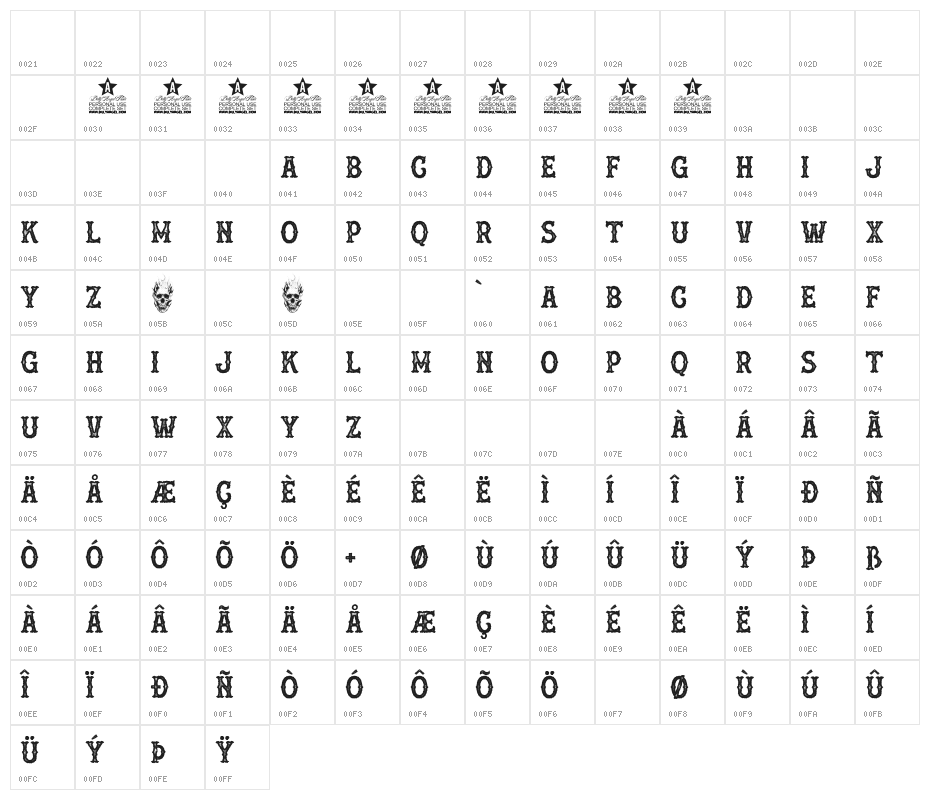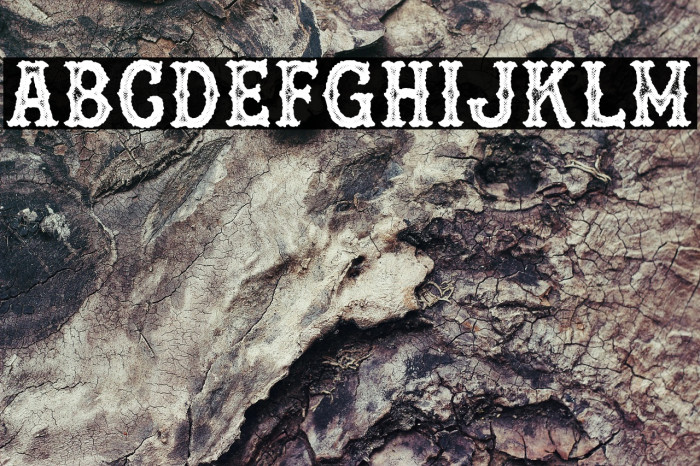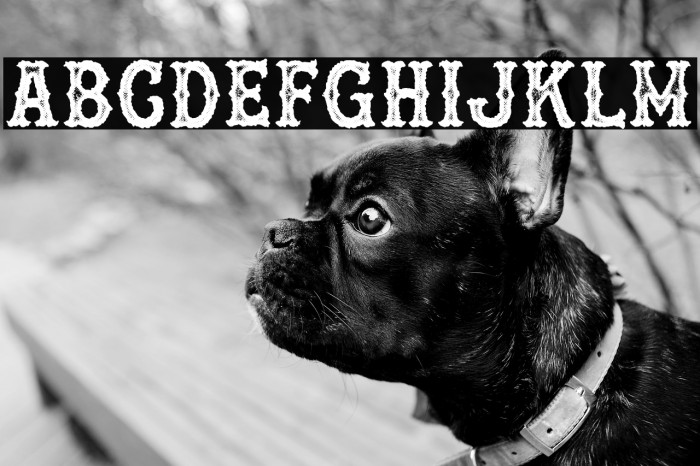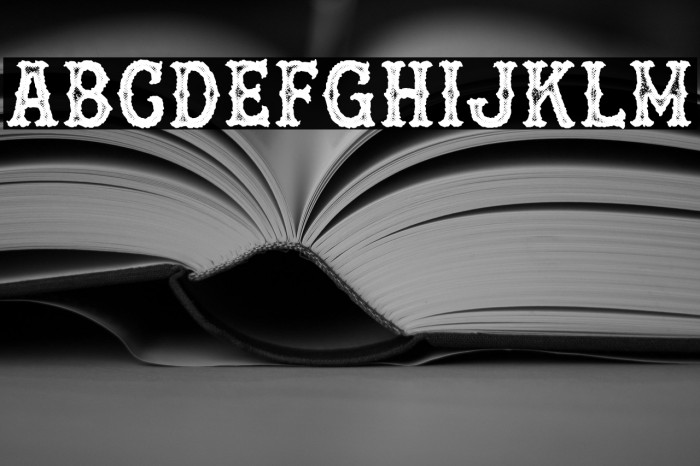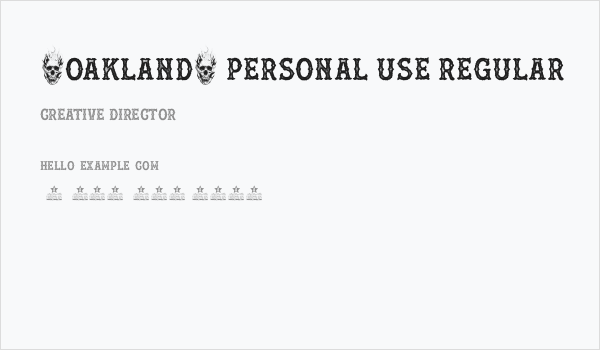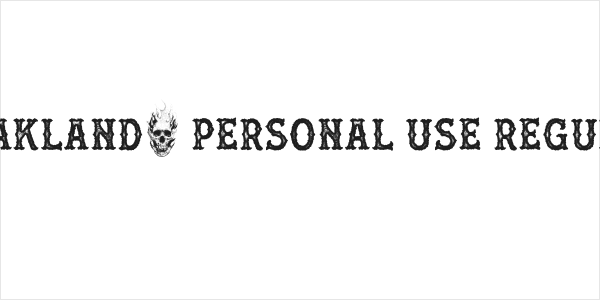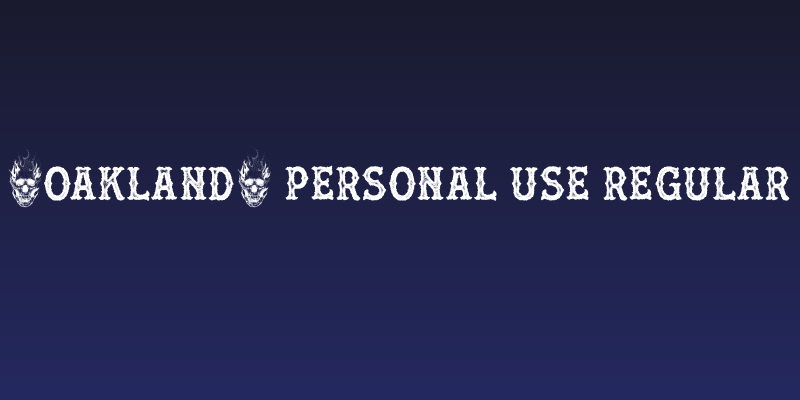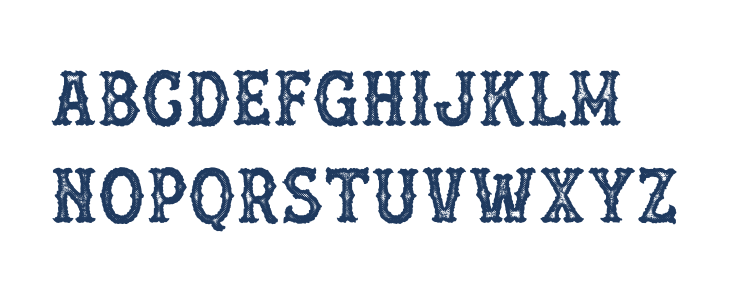
[OAKLAND] PERSONAL USE Regular Font
[OAKLAND] PERSONAL USE Regular Description
This font features a bold and decorative style with a rugged, textured appearance. Each letter is adorned with intricate details that give it a handcrafted, vintage feel. The characters are bold and slightly condensed, making them stand out with a strong presence. The texture within each letter adds a unique, almost distressed look, reminiscent of old woodcuts or vintage posters. This font is ideal for projects that require a touch of nostalgia or a rustic aesthetic. Its decorative nature makes it suitable for headlines, logos, or any design that aims to capture attention with a bold statement.